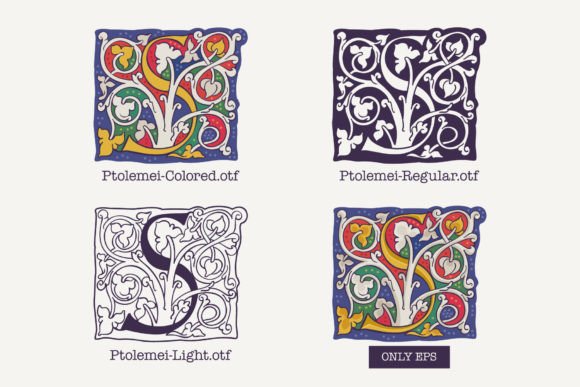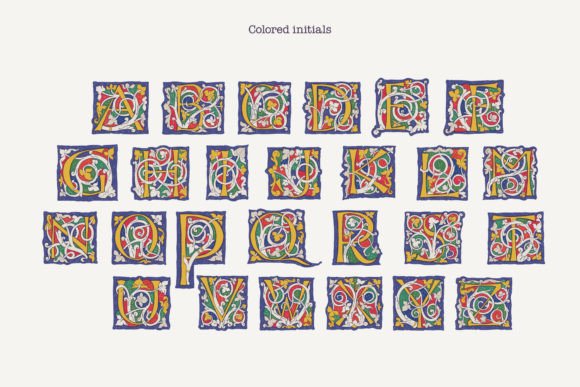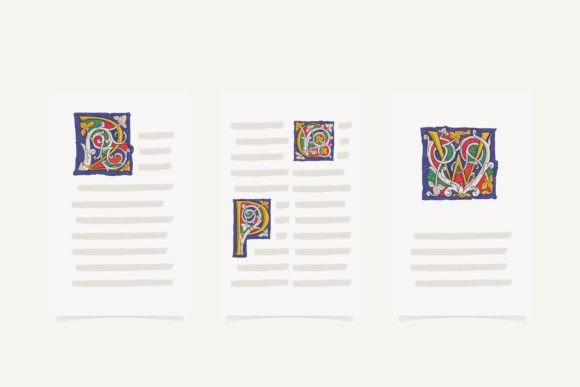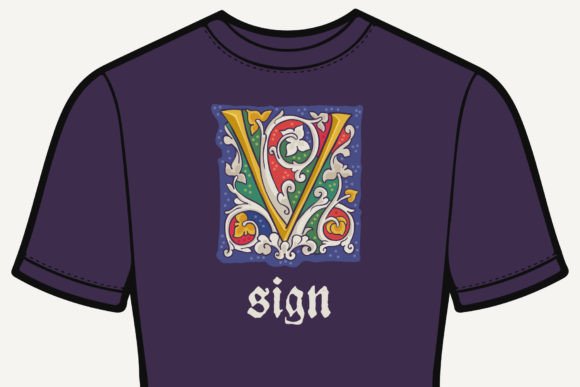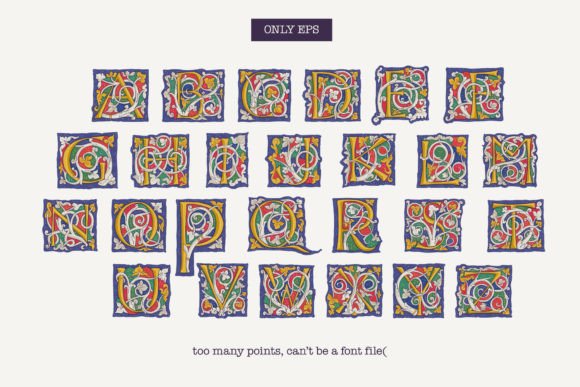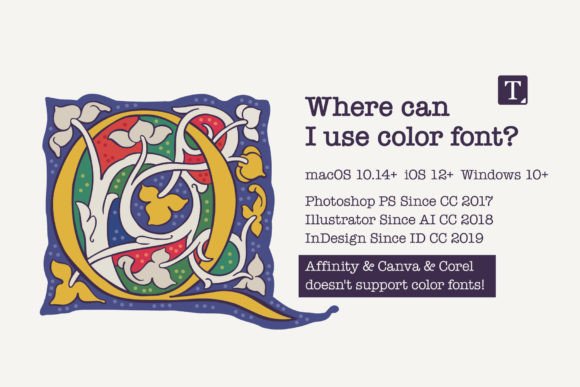
Introduction to Ptolemei Font
Have you ever stumbled upon an old, leather-bound book in a dusty attic, and as you flipped through its yellowed pages, you discovered a beautiful, intricate monogram that instantly transported you to a bygone era? That’s the magic of the Ptolemei Font – a classic and ancient font that exudes elegance and tradition. With its intricate and ornate details, this font is perfect for creating designs that evoke a sense of history and prestige.
Key Features of Ptolemei Font
- Unique, elegant, and sophisticated font style, perfect for adding a touch of sophistication to your design.
- Ptolemei Font is a versatile design resource that can be used for various creative projects, from logos to typography.
Honest Review: Ptolemei Font
As a designer, I’m always on the lookout for high-quality design resources to elevate my creative projects. The Ptolemei Font is one such resource that caught my attention, and I’m excited to share my honest review with you.
- ✨ Unique and elegant design aesthetic that’s perfect for creative projects.
- ⚠️ Limited font styles available, which may not be suitable for complex design projects.
- ⚠️ Not all font sizes are perfectly scalable, which may affect readability at smaller sizes.
Overall, I’m impressed with the Ptolemei Font’s unique design and high-quality font files. While it may have some limitations, it’s still a valuable resource for designers working on creative projects. I’d definitely recommend it for designers looking for a free, high-quality font.
Ptolemei Font is ideal for creative projects that require a unique and modern design. Use it for logos, branding materials, or as a design resource for your next project.